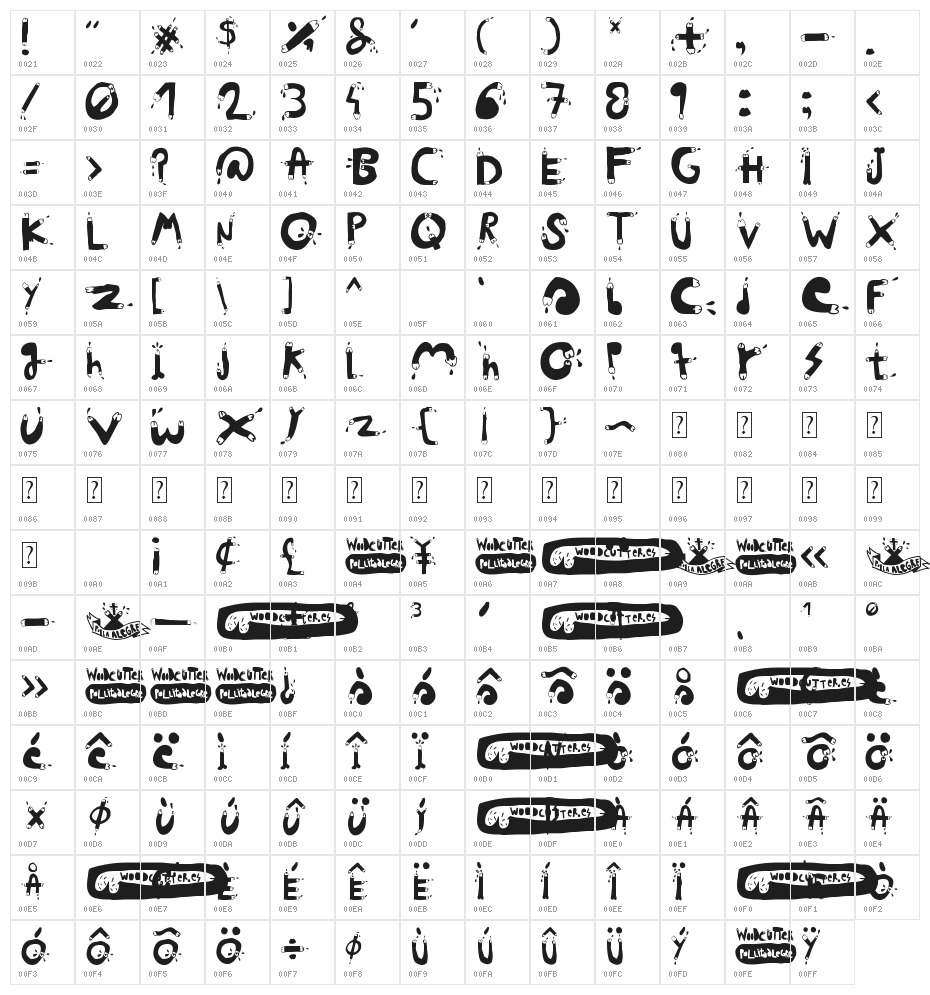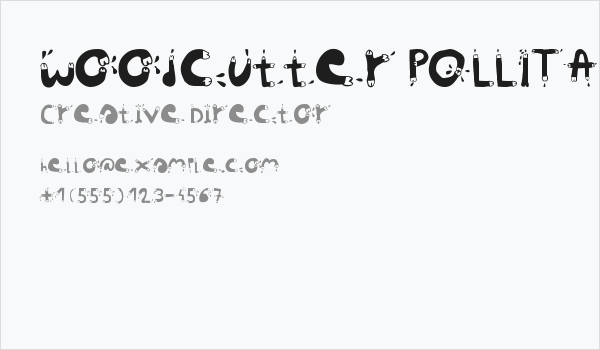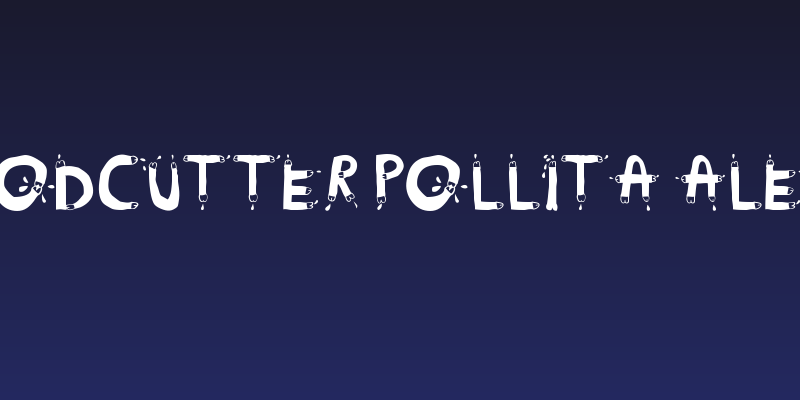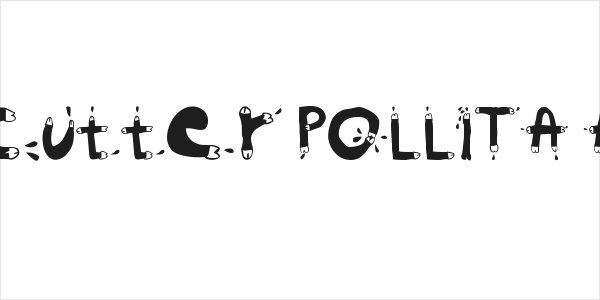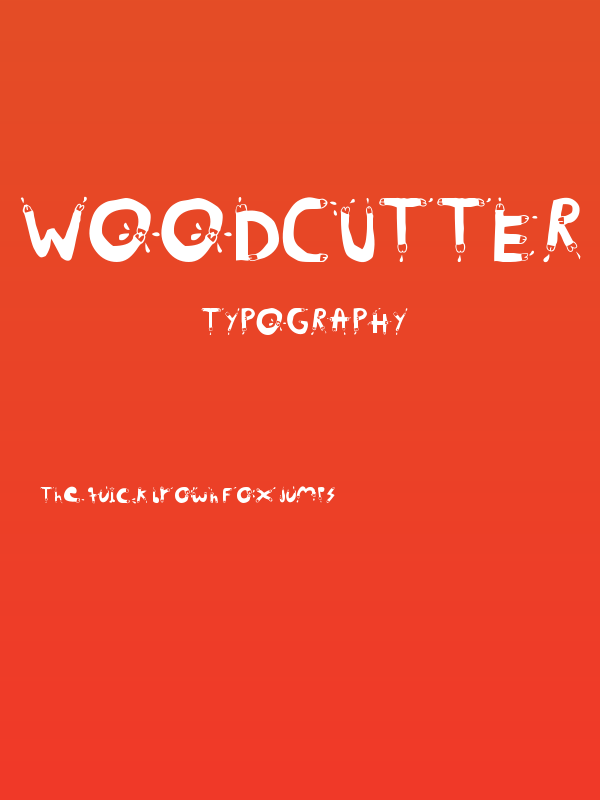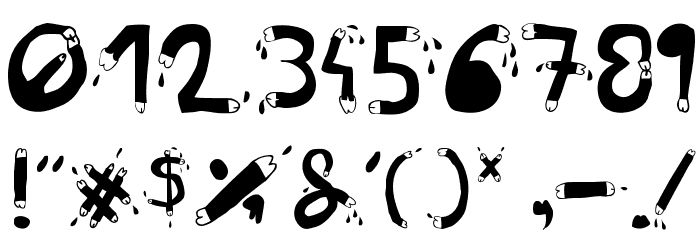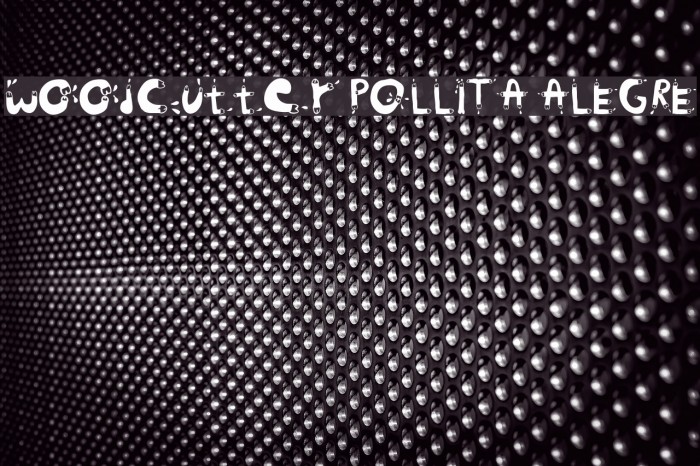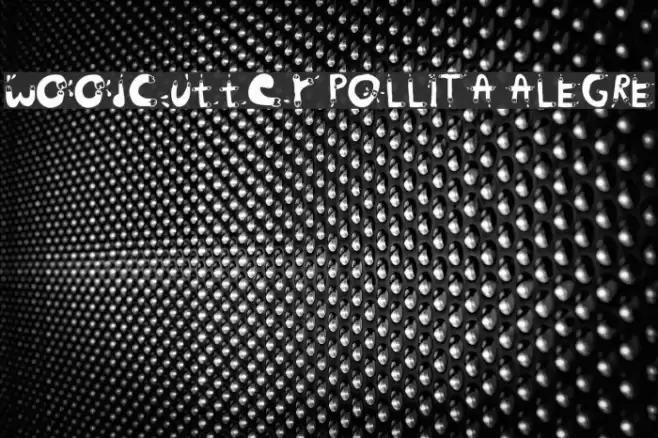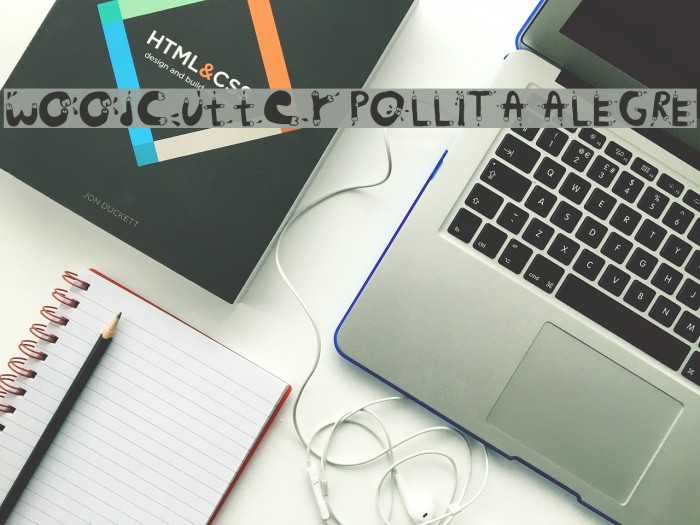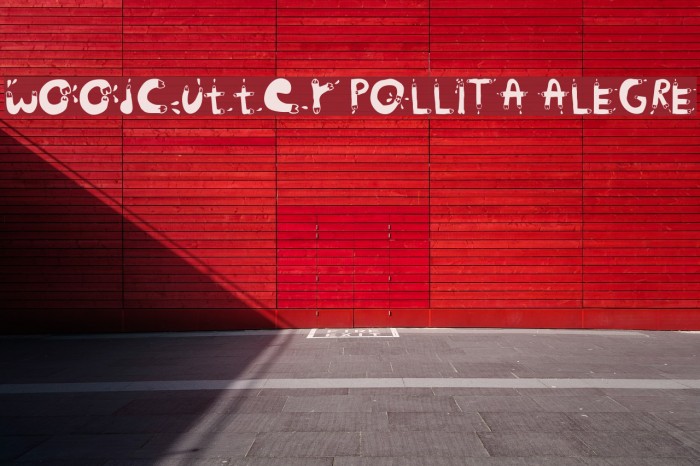
woodcutter POLLITA ALEGRE Font
woodcutter POLLITA ALEGRE Description
This playful and whimsical font features bold, rounded characters with unique decorative elements resembling small feet and hands. Each letter is infused with a sense of fun and creativity, making it ideal for projects that require a lighthearted and engaging aesthetic. The font's characters are distinct and easily recognizable, with a consistent style that maintains readability while adding a touch of humor. The numbers and special characters follow the same playful theme, ensuring a cohesive look across all text elements.
| Overall Style | Playful, Whimsical |
| Proposed Projects | Ideal for children's books, playful branding, party invitations, and creative posters. |